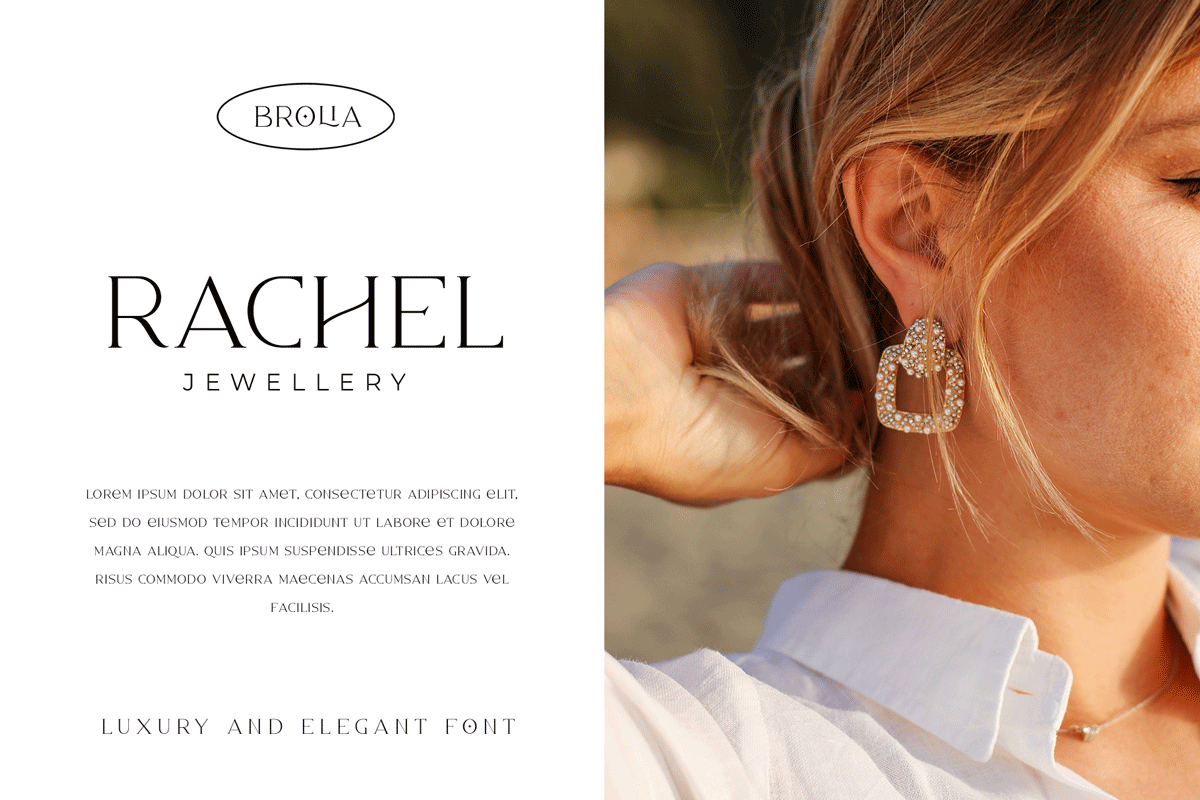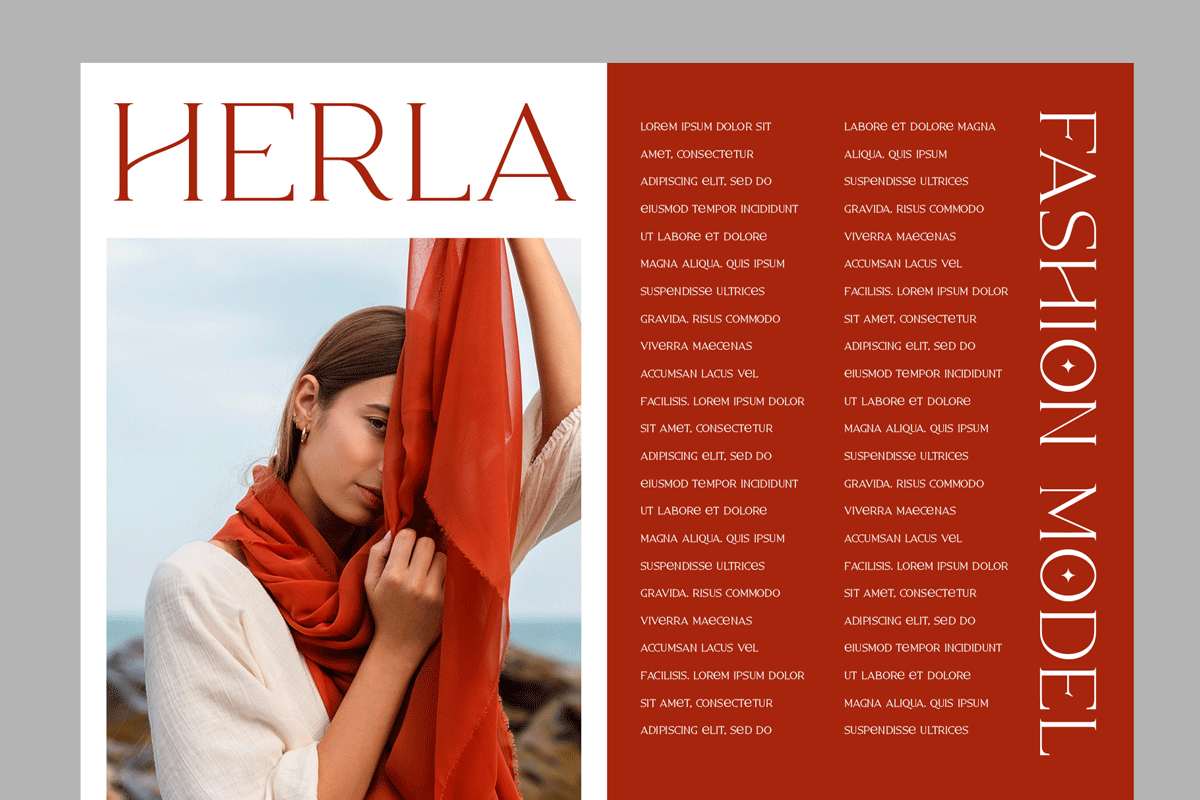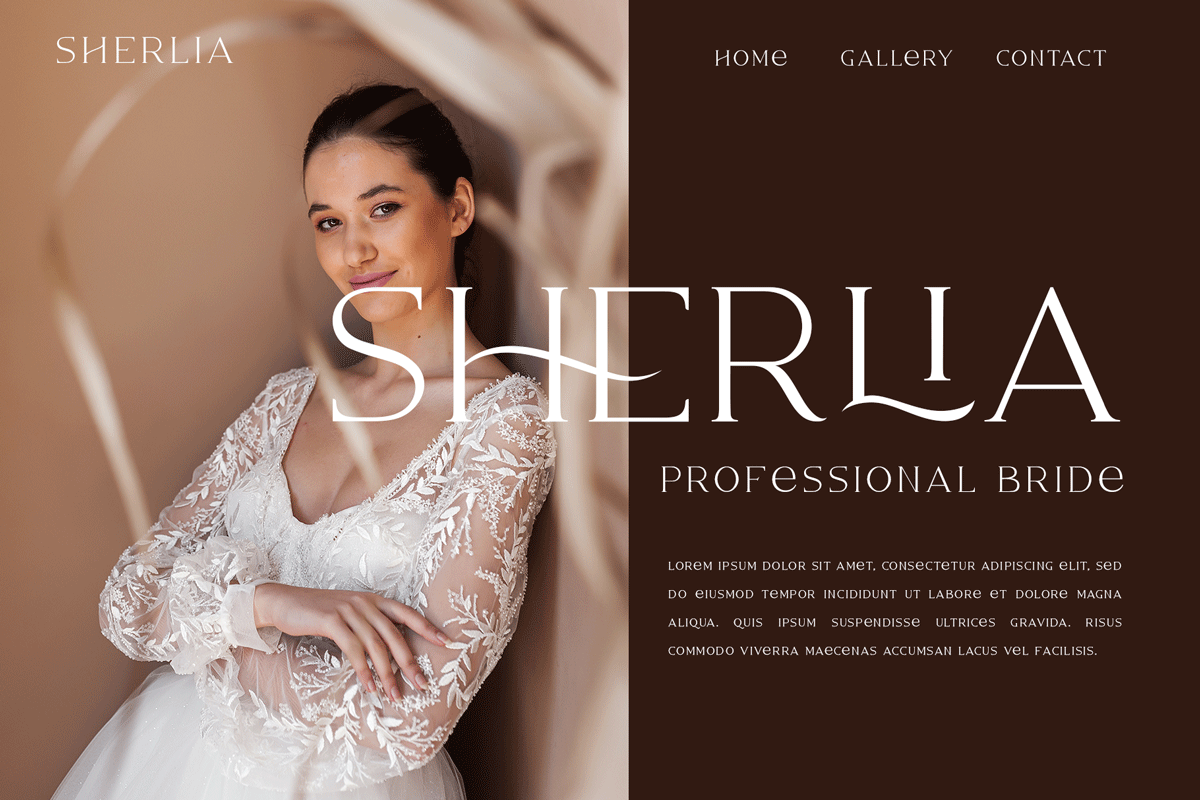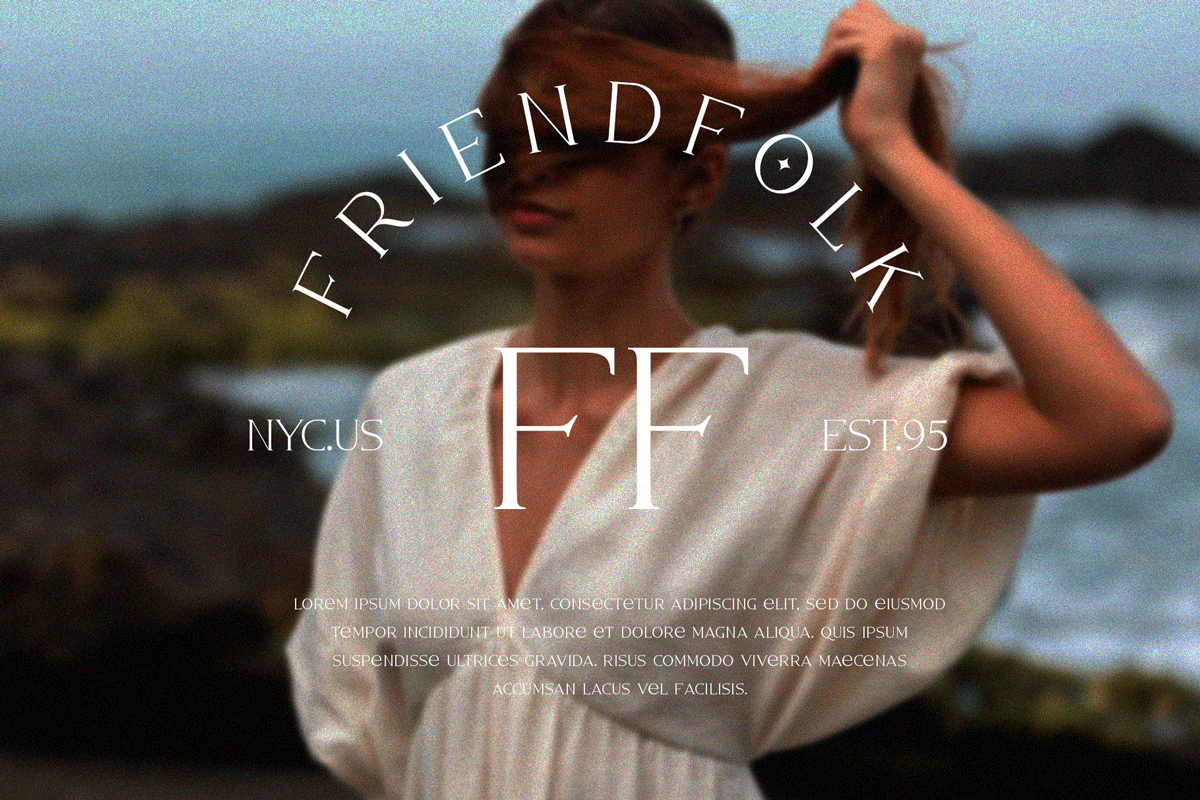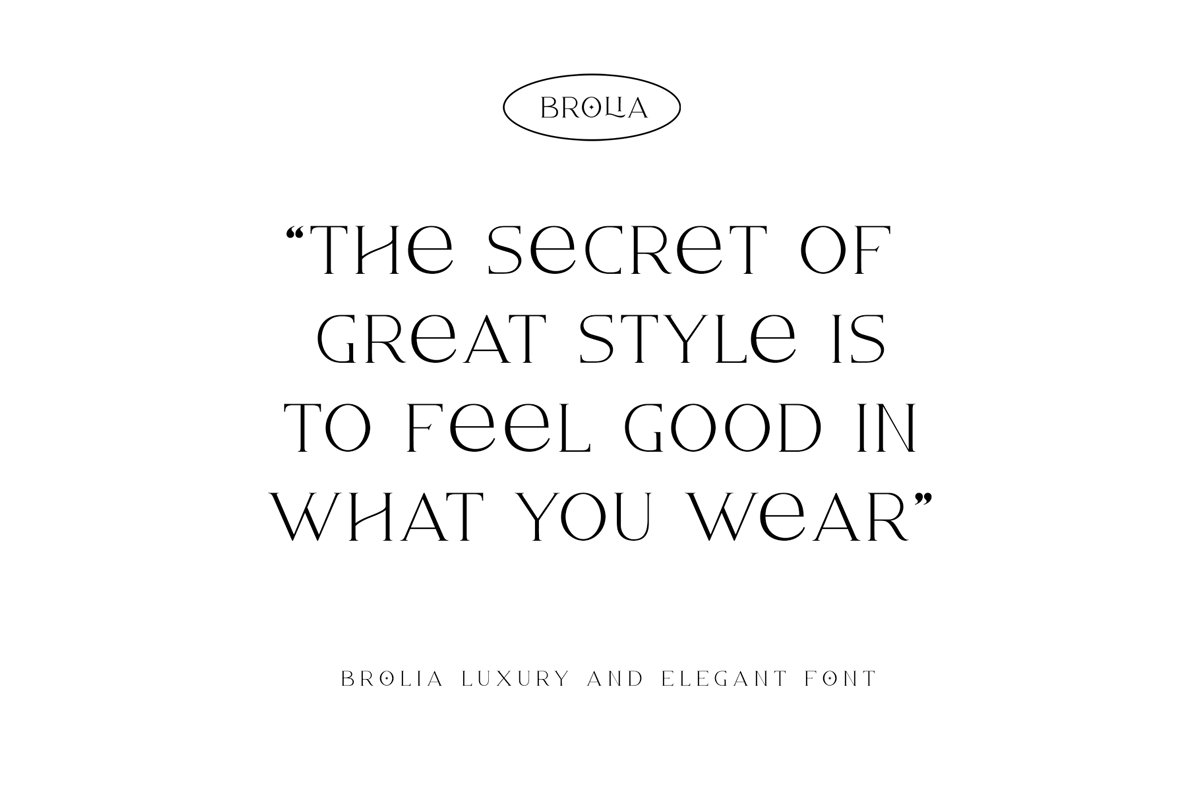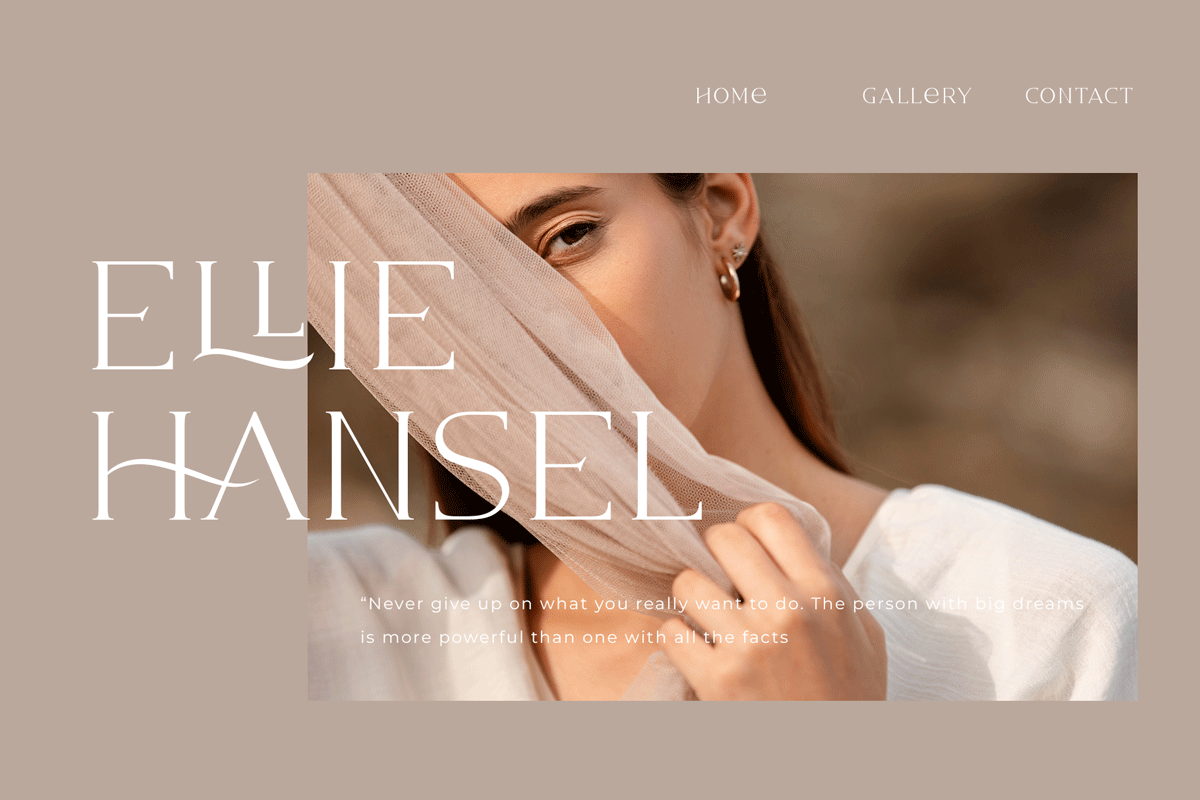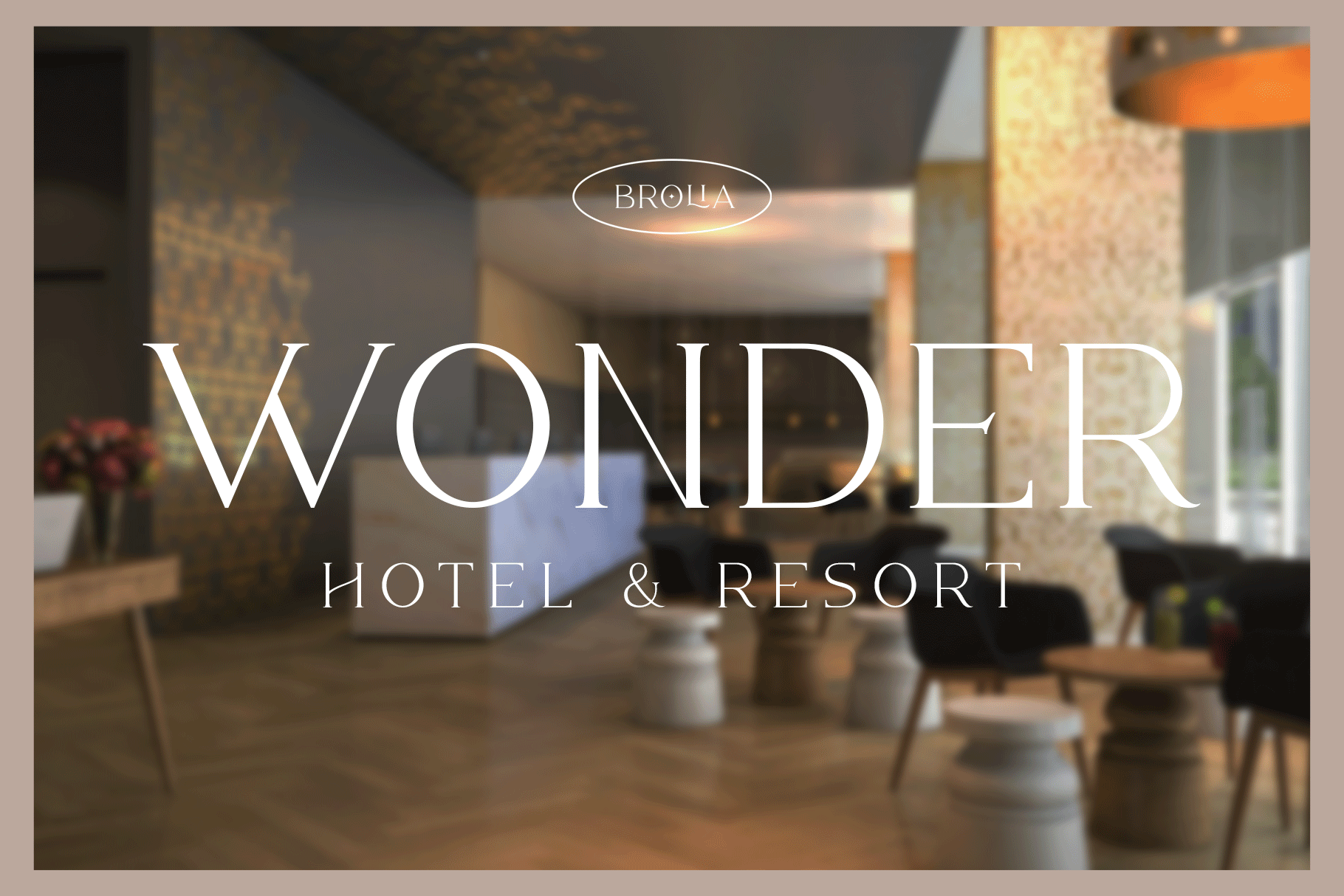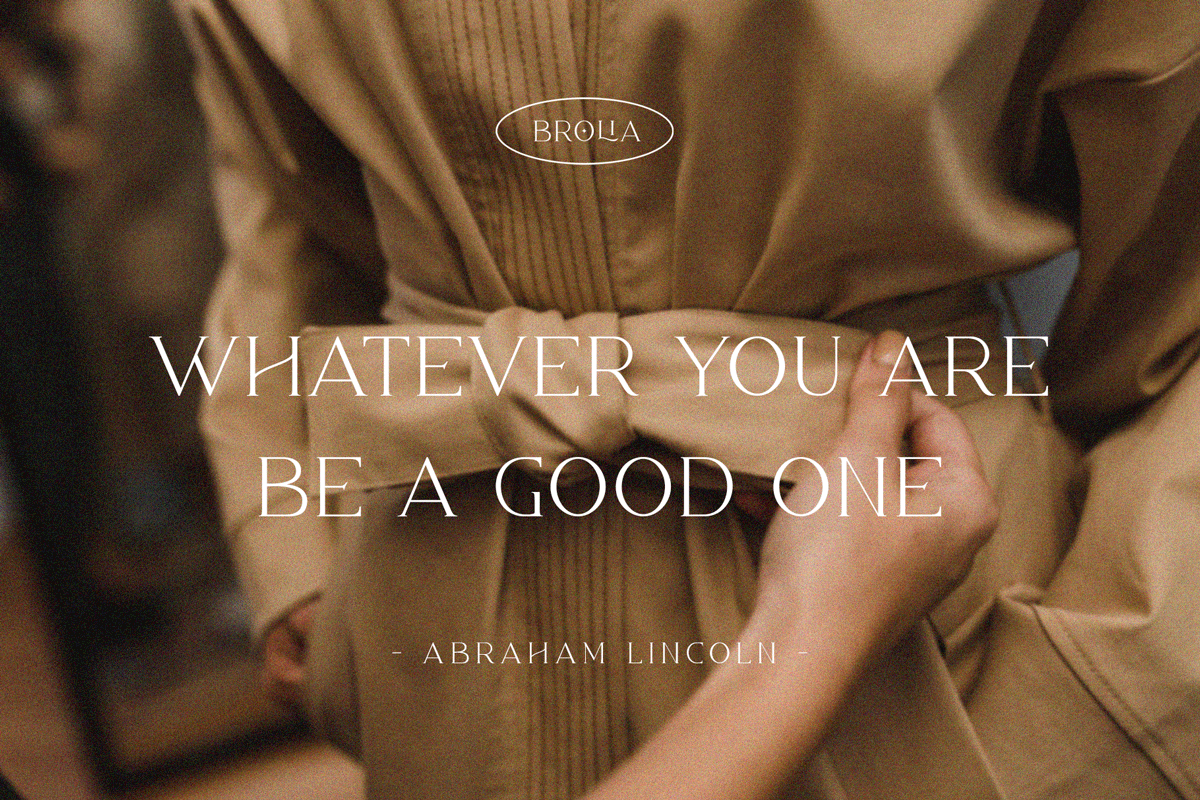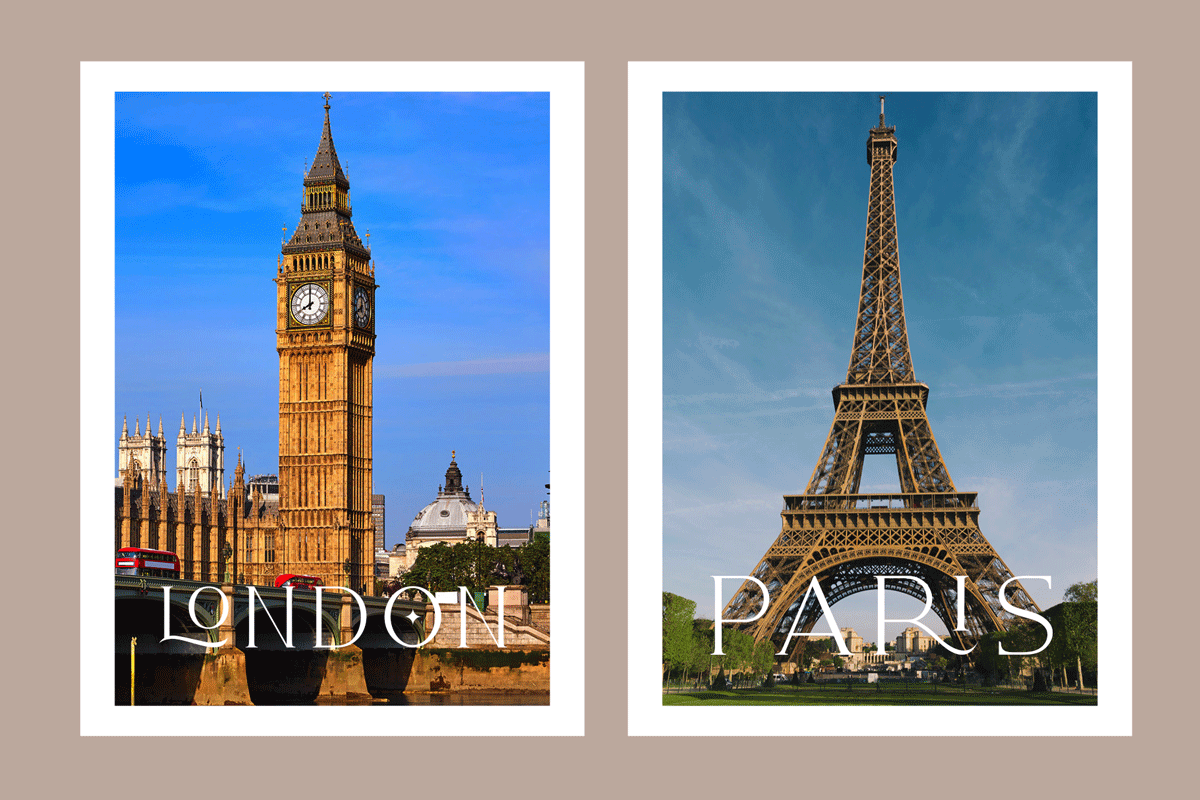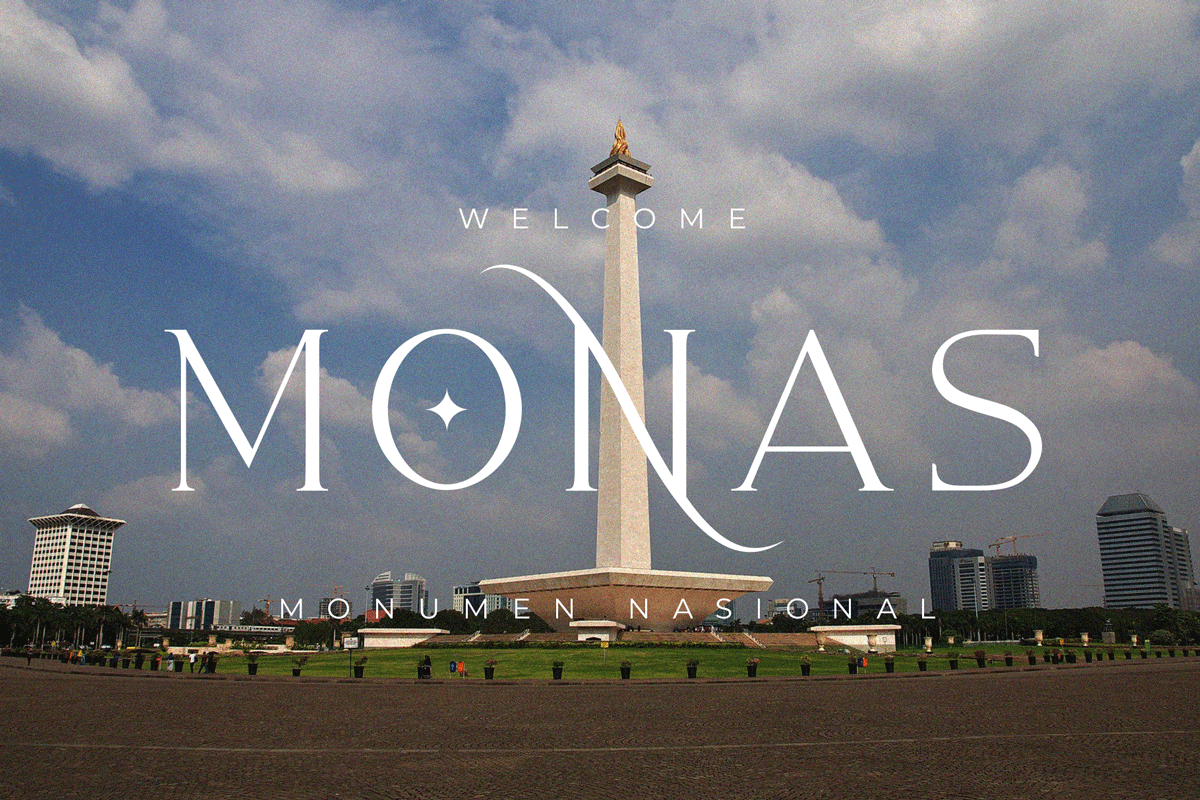
Brolia Modern Serif Font
Brolia – a chic & elegant display modern serif with beautiful contrast and have unique ligature for optional. Specially designed for fashion-themed projects, perfectly suitable for creating elegant, chic, lifestyle design such as logos, title, and magazine, and more. Now you have more choice when using Brolia for typography.
Brolia – separate in reguler and ligature so you can choice want to use ligature or not. For alternater in uppercase, numerals and punctuation. (See preview image for the full character map.)